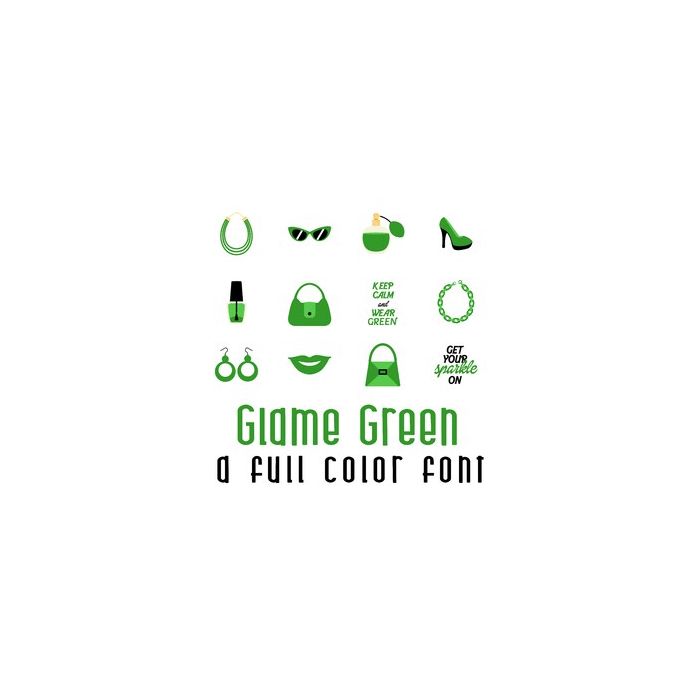
This adorable full-color doodlebat font features 26 green fashionable items and phrases. Perfect for cards, crafts, gifts, decor, scrapbook pages, planner stickers, and more!